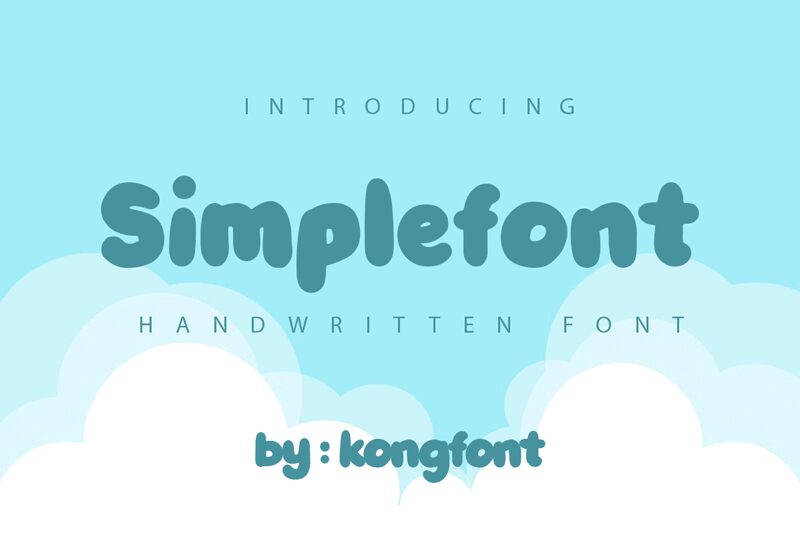
Simplefont by Kong Font is a welcoming hand-sketched lettering font with a distinctive cartoonish aesthetic. The font is friendly and approachable with a casual yet modern style. The lack of fancy serifs combined with the irregularities creates a sense of authenticity and rawness that (despite its simplicity) is impossible to ignore.
Intended especially for youthful and informal audiences, Simplefont is well-suited for logos, branding, social media posts, and packaging design. It can also be used in editorial design and advertising in magazines, posters, flyers, and stationery items. Furthermore, try it in illustration and typography, or web design and application design.